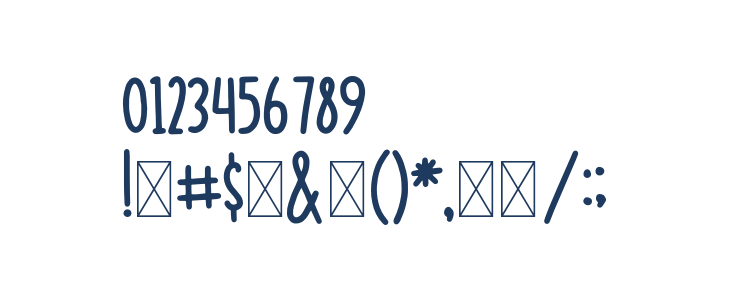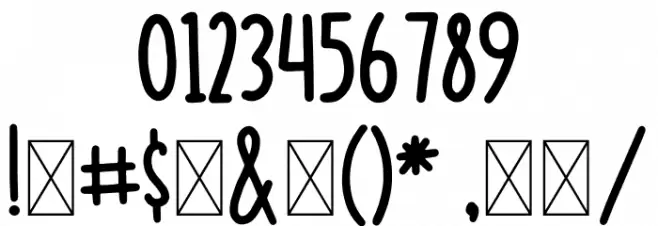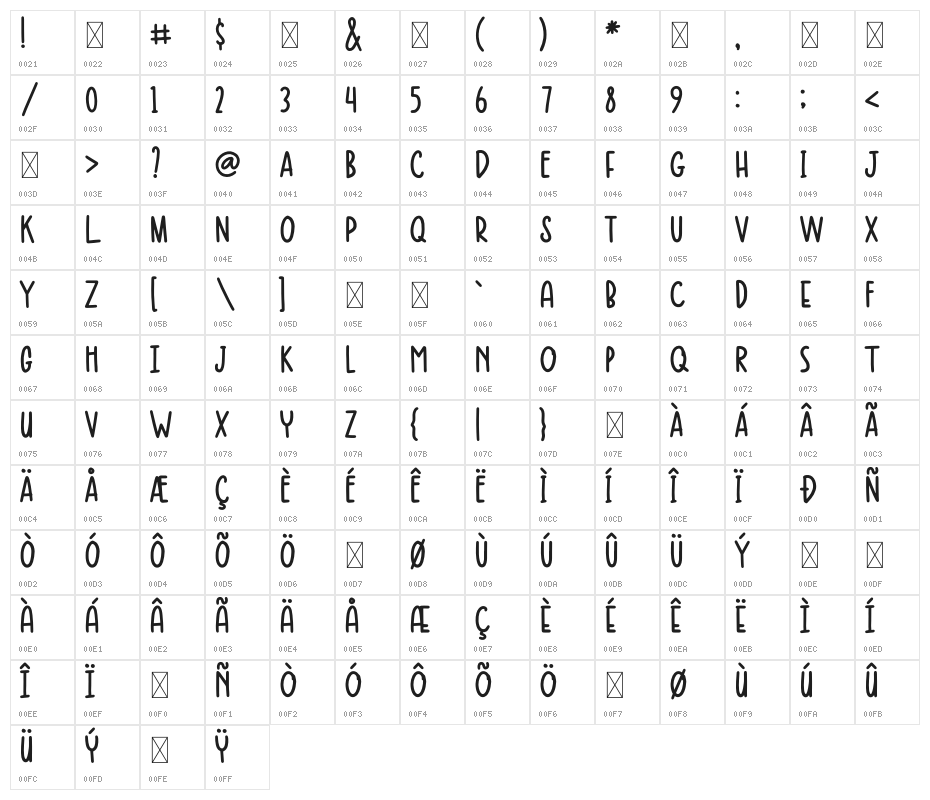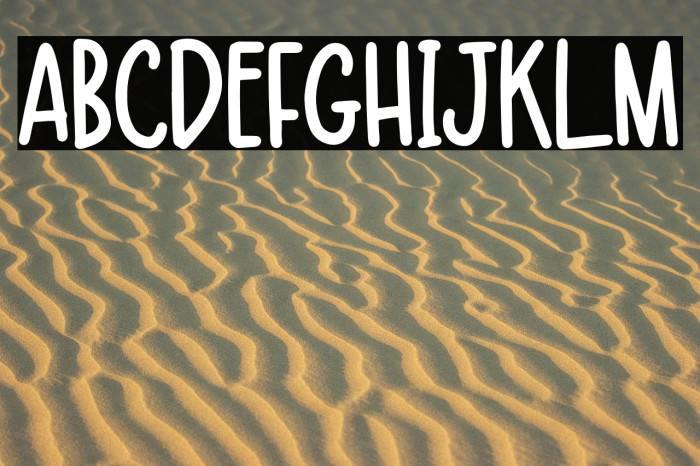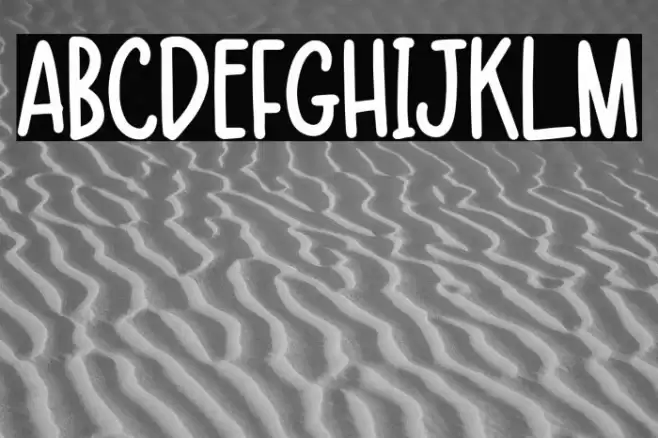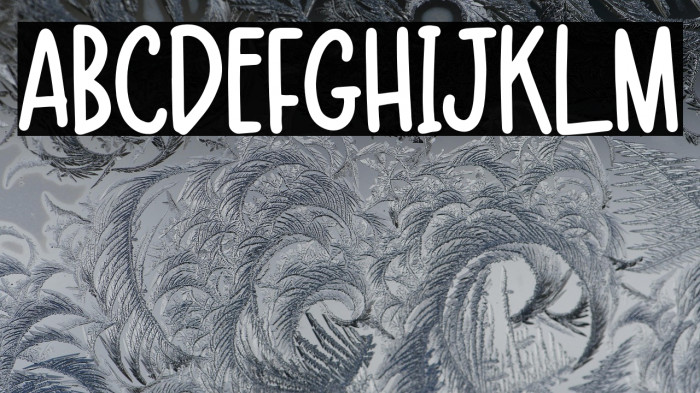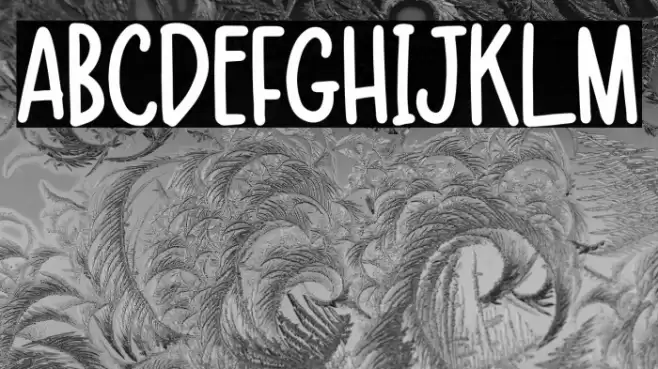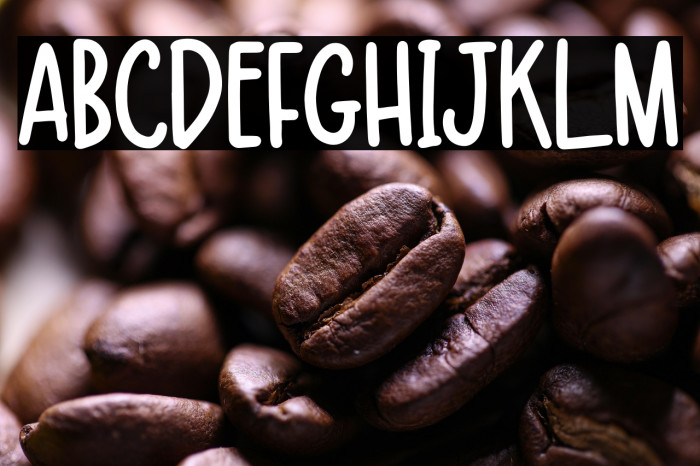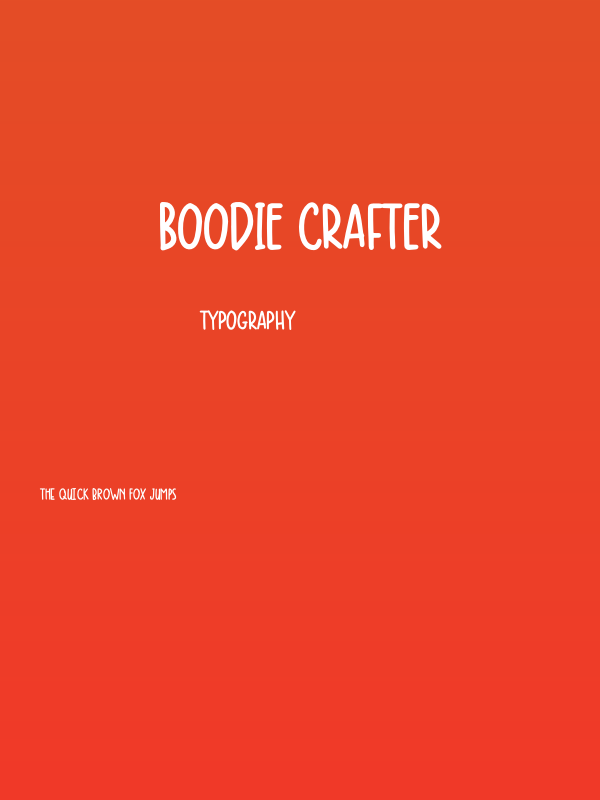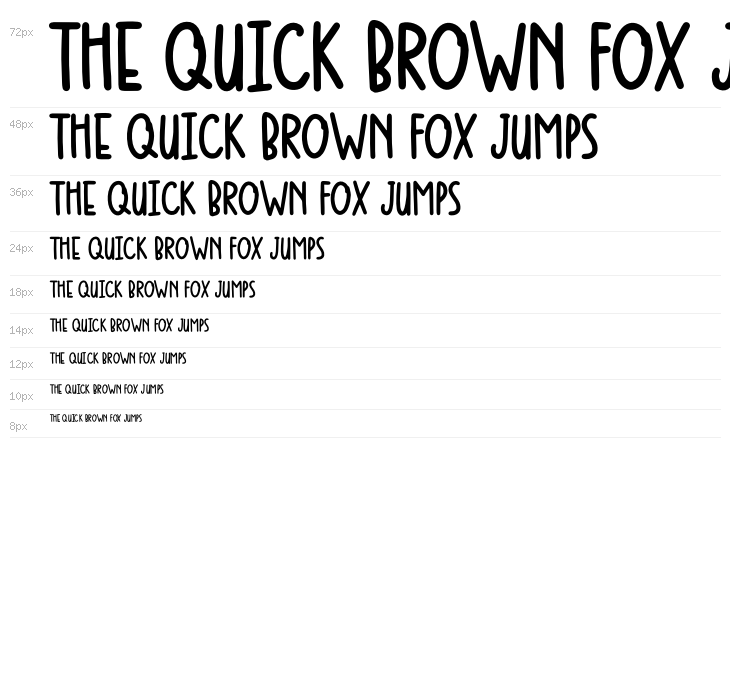
Boodie Crafter Font
Boodie Crafter Description
This font features a playful and casual handwritten style, characterized by its rounded and slightly irregular letterforms. The strokes are consistent in thickness, giving it a uniform appearance while maintaining a friendly and approachable vibe. The uppercase and lowercase letters are well-balanced, with a slight slant that adds to its informal charm. The numerals are clear and legible, matching the overall aesthetic. Special characters are included, maintaining the same playful style. This font is ideal for projects that require a personal touch, such as greeting cards, invitations, or playful branding.
| Proposed Projects | Ideal for greeting cards, invitations, playful branding, and personal projects. |